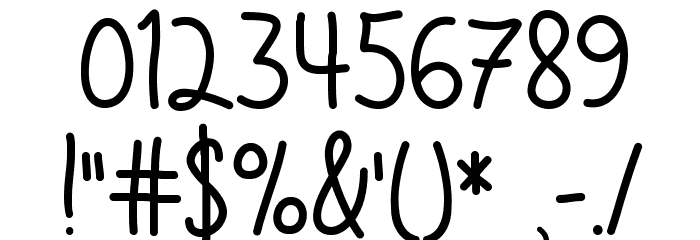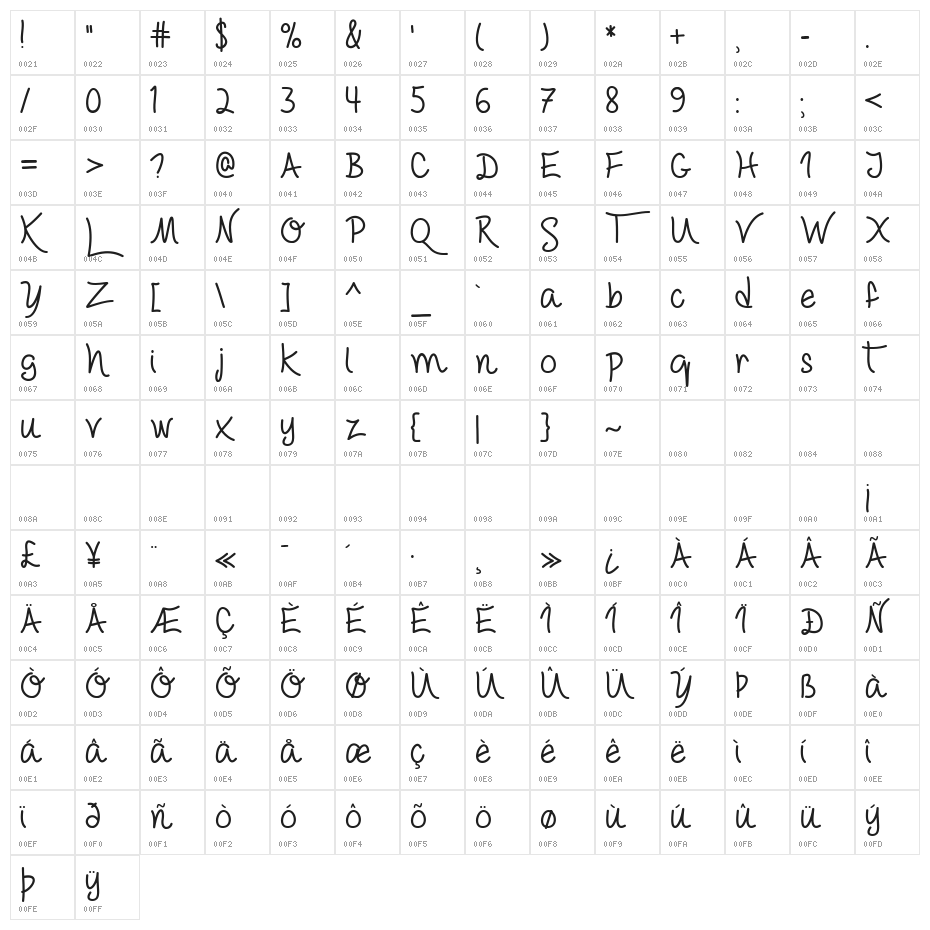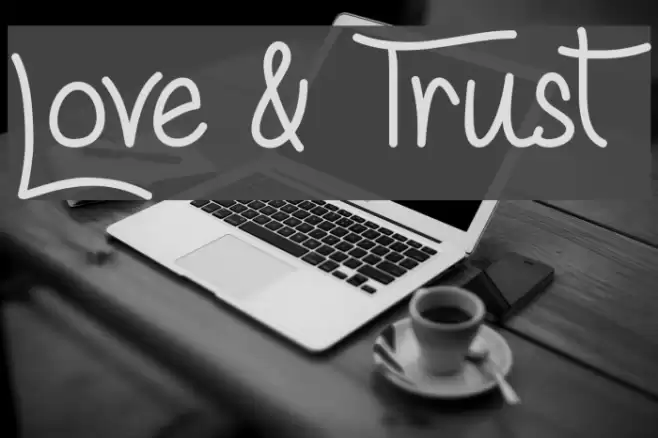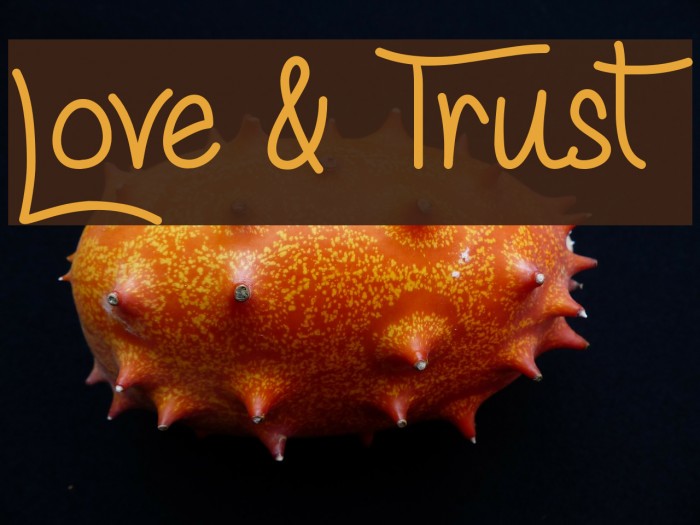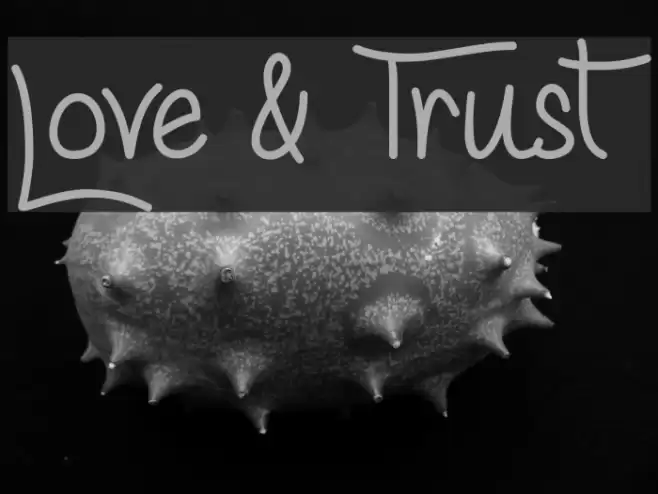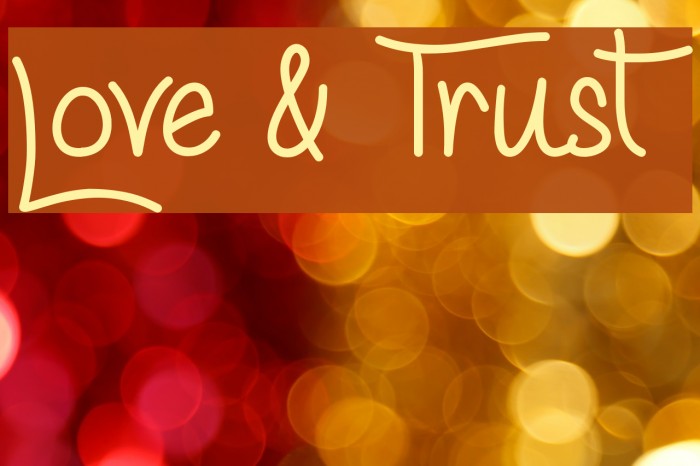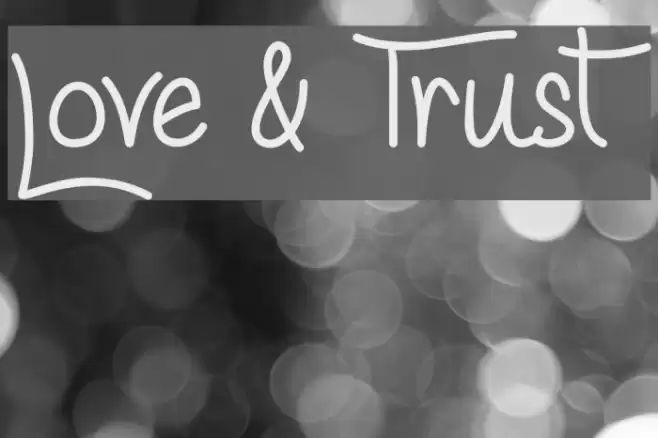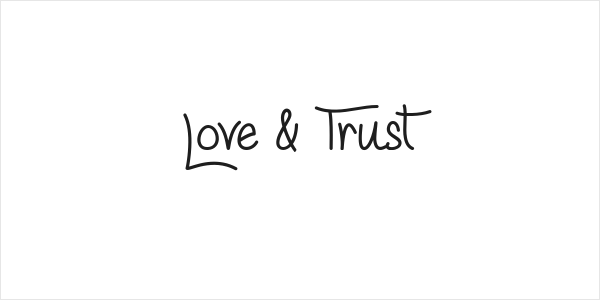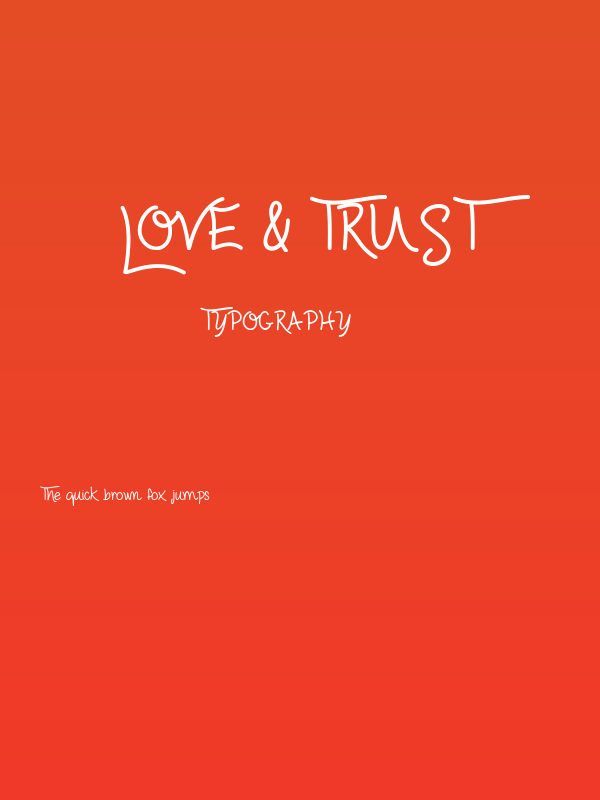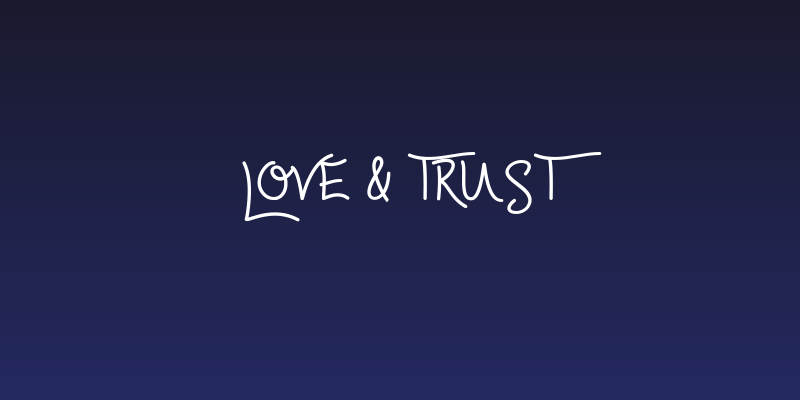
Love & Trust Font
Love & Trust Description
This font features a playful and whimsical handwritten style, characterized by its flowing and slightly irregular letterforms. The strokes are smooth and rounded, giving it a friendly and approachable appearance. The uppercase and lowercase letters maintain a consistent style, with a slight slant that adds to its casual feel. The numerals and special characters are designed to match the overall aesthetic, ensuring cohesion across all elements. This font's unique personality makes it suitable for projects that aim to convey warmth and creativity.